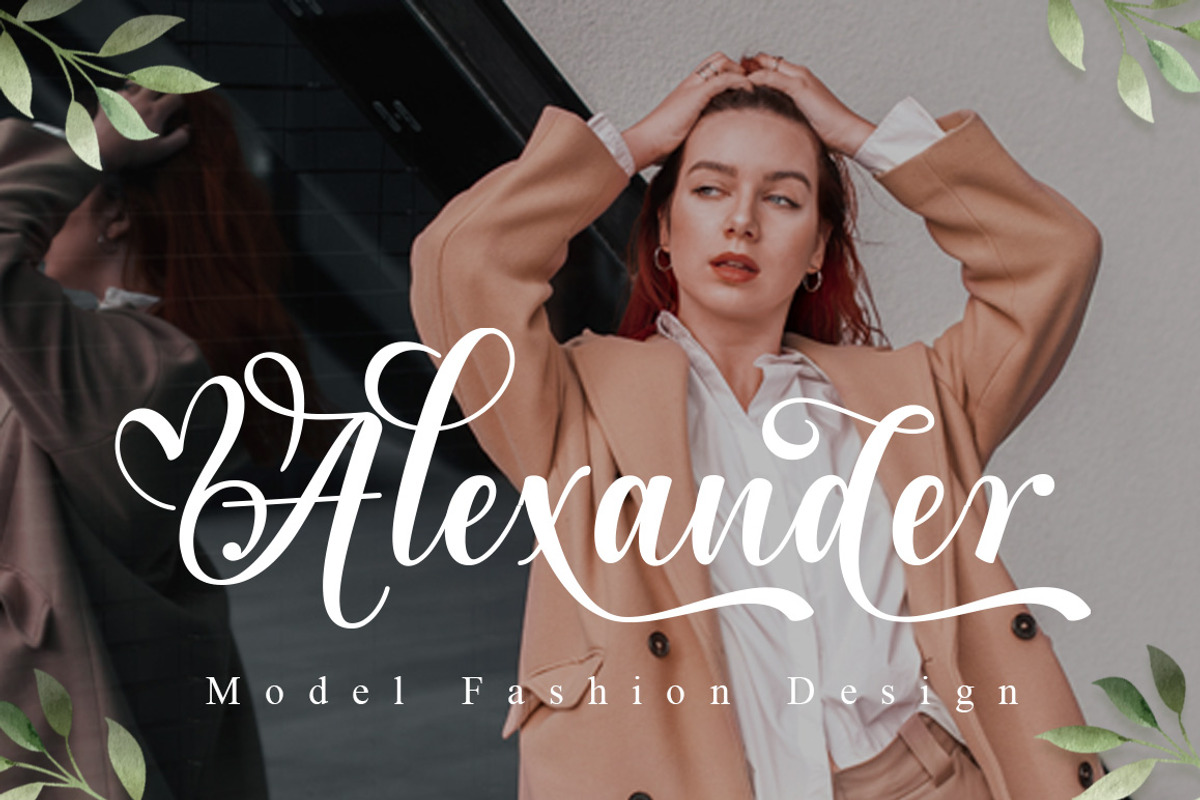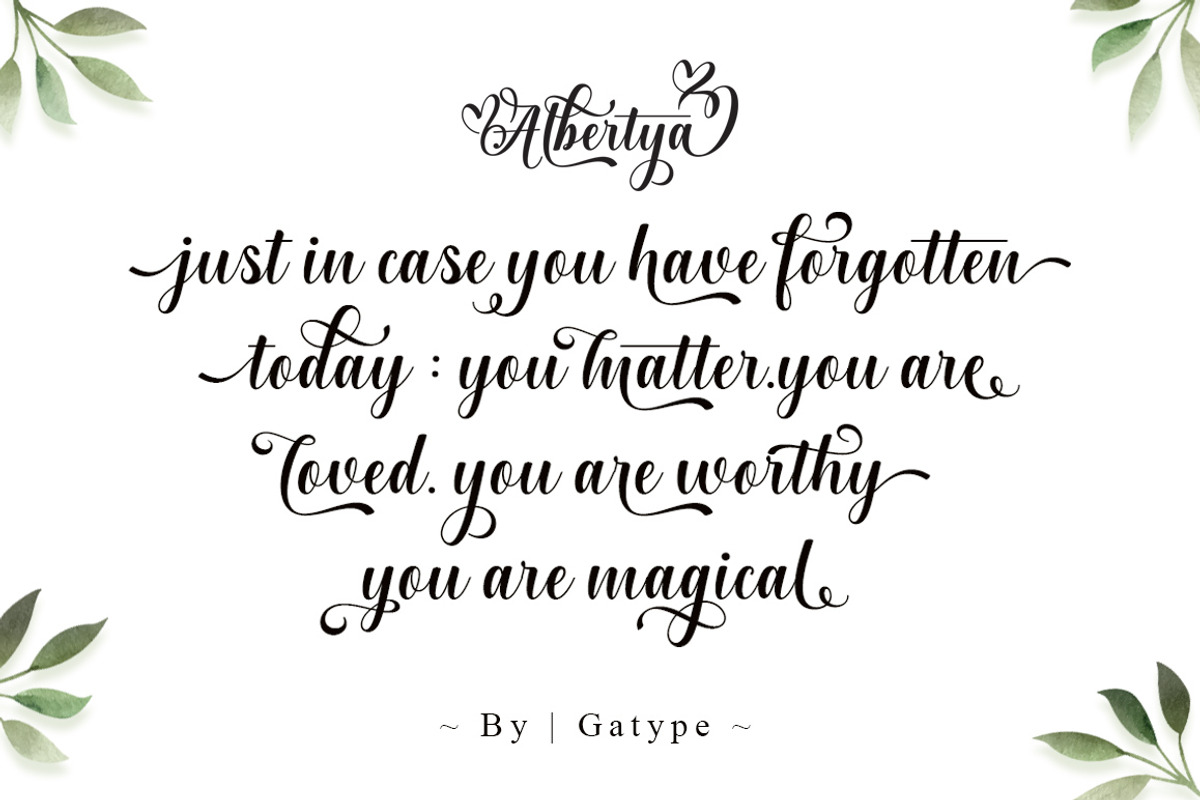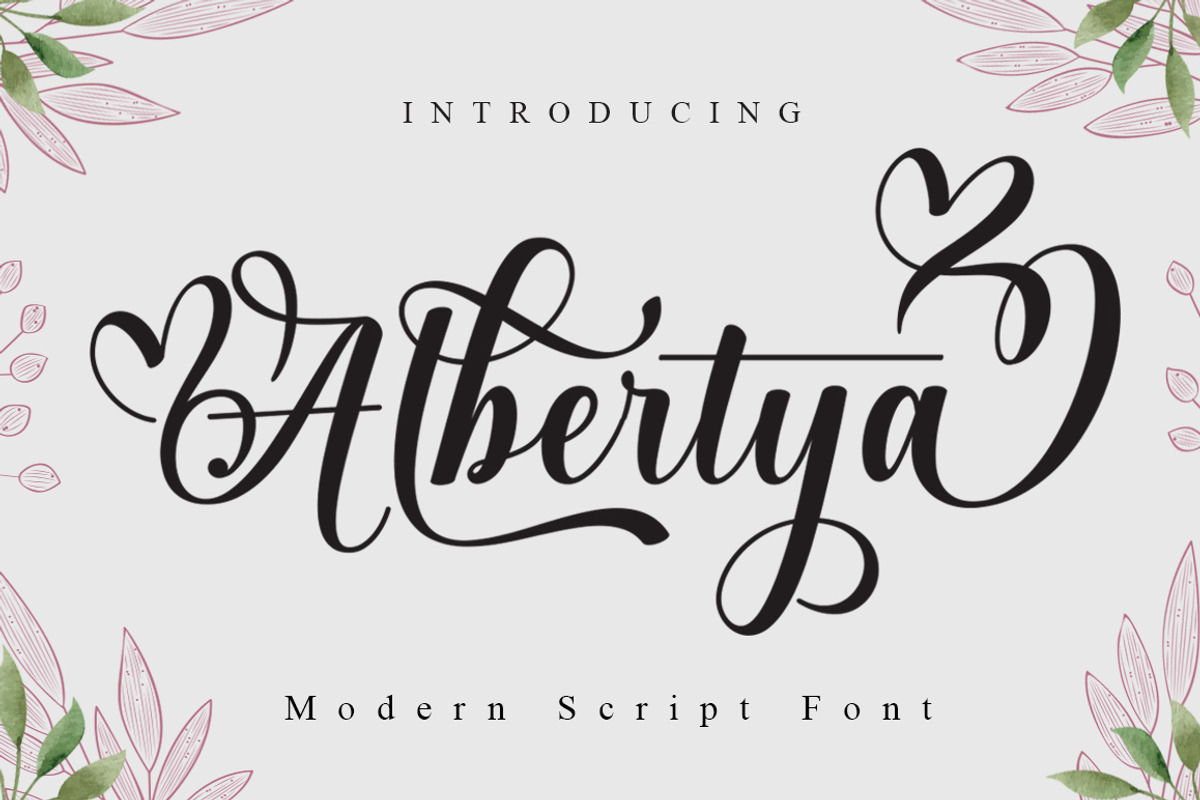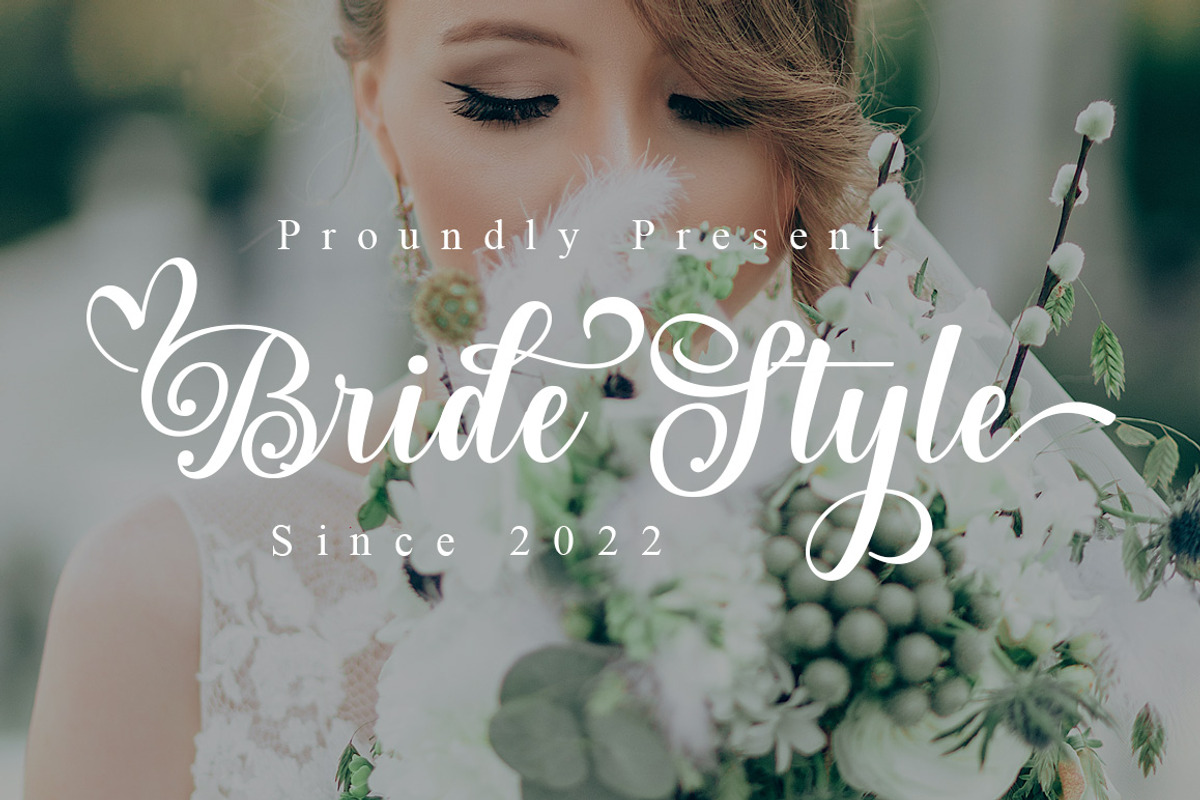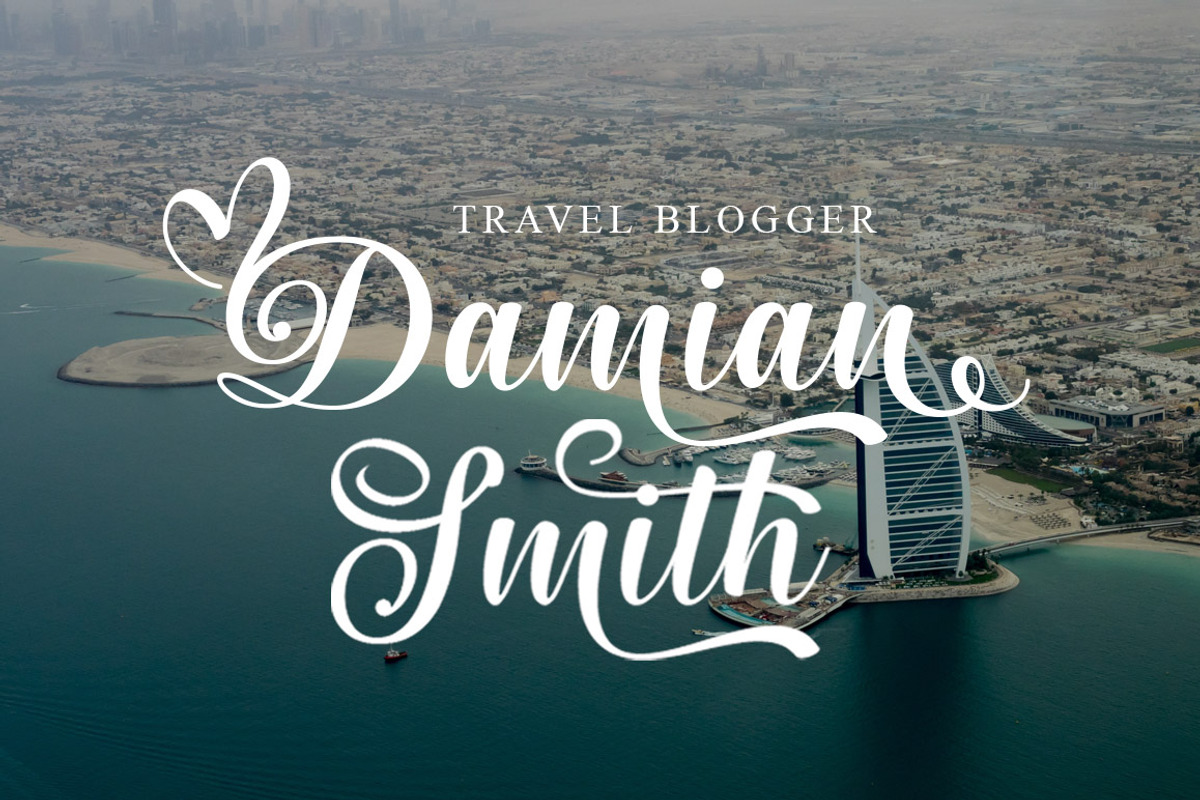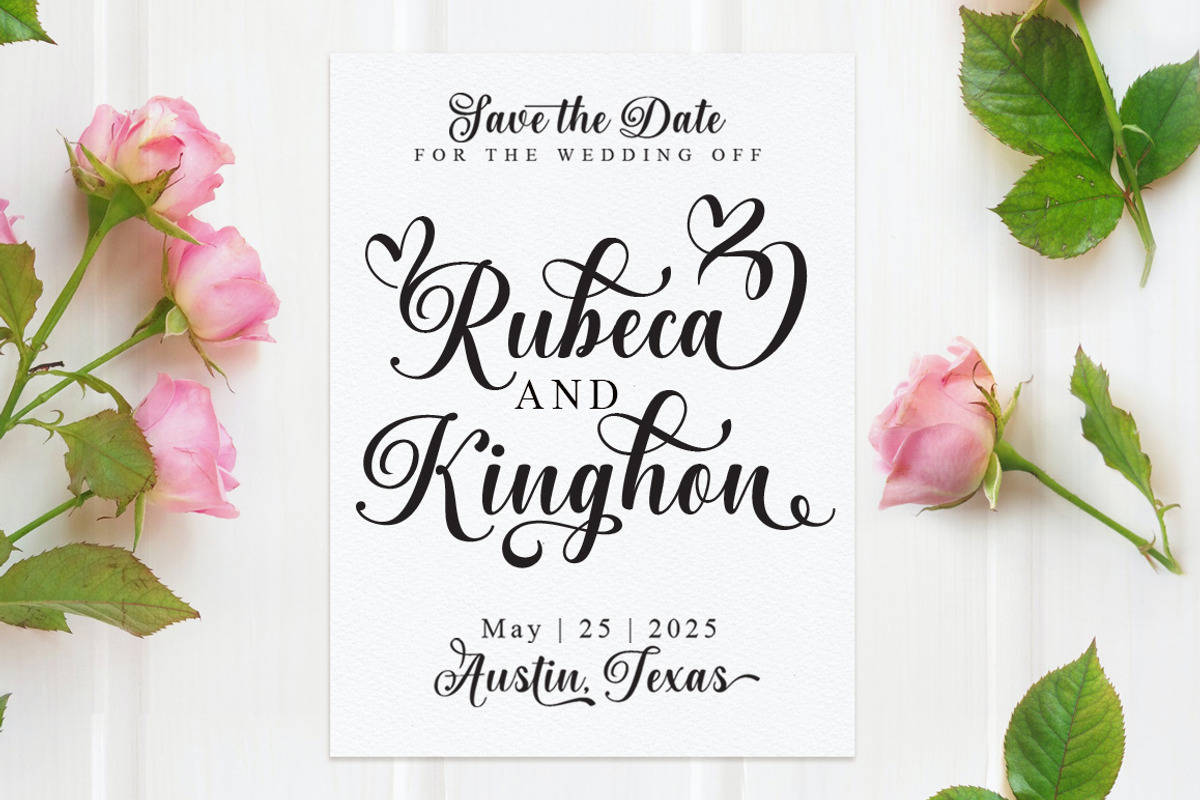
Albertya
Albertya is a modern calligraphy font. This font is casual and pretty with a stroke. Can be used for various purposes. such as logos, product packaging, wedding invitations, branding, headlines, signage, labels, signatures, book covers, posters, quotes and others.
Albertya Script featuring OpenType style alternatives, ligatures, and International support for most Western Languages is included. To enable the OpenType Stylistic alternative, you need a program that supports OpenType features such as Adobe Illustrator CS, Adobe Indesign & CorelDraw X6-X7, Microsoft Word 2010 or a later version.